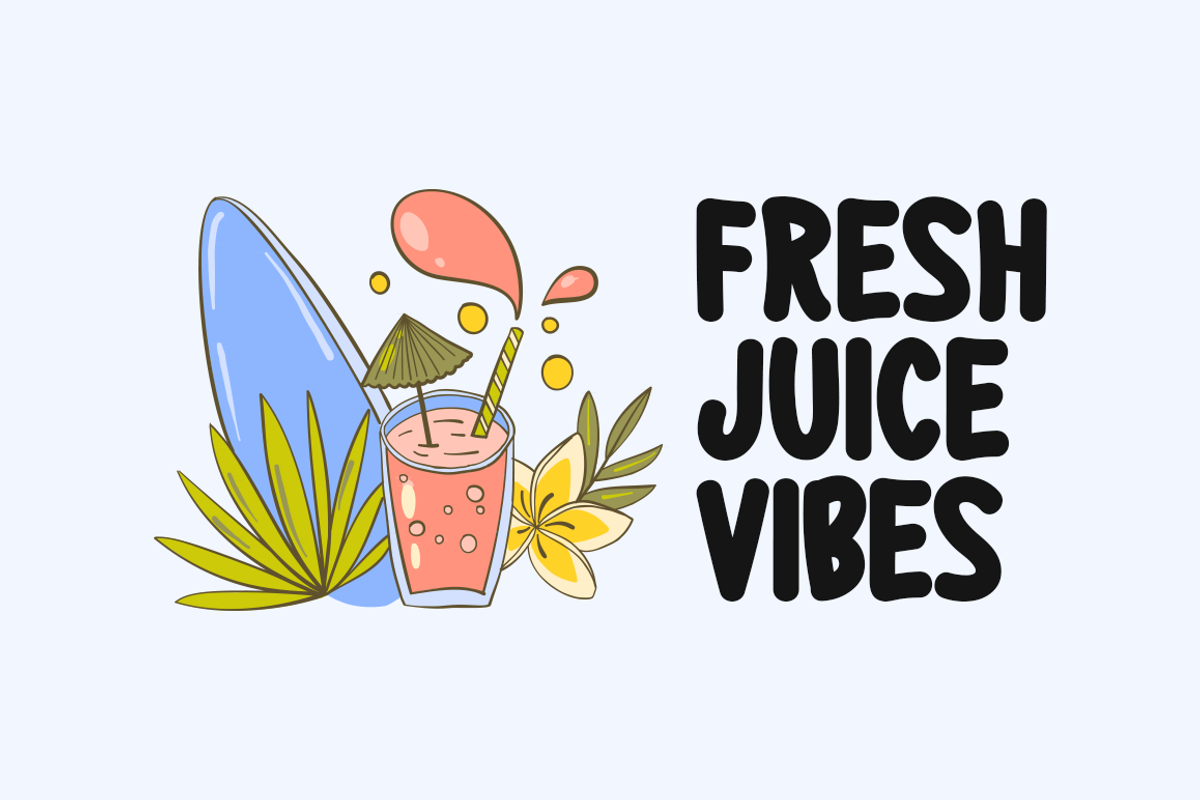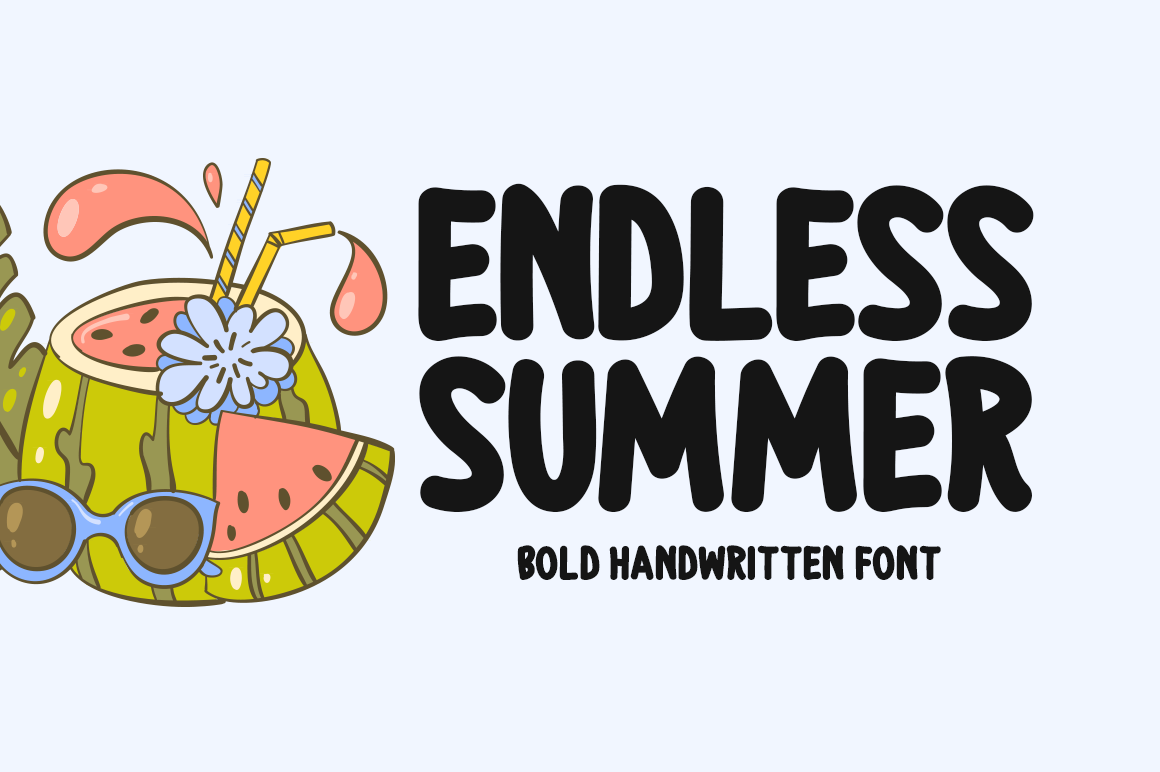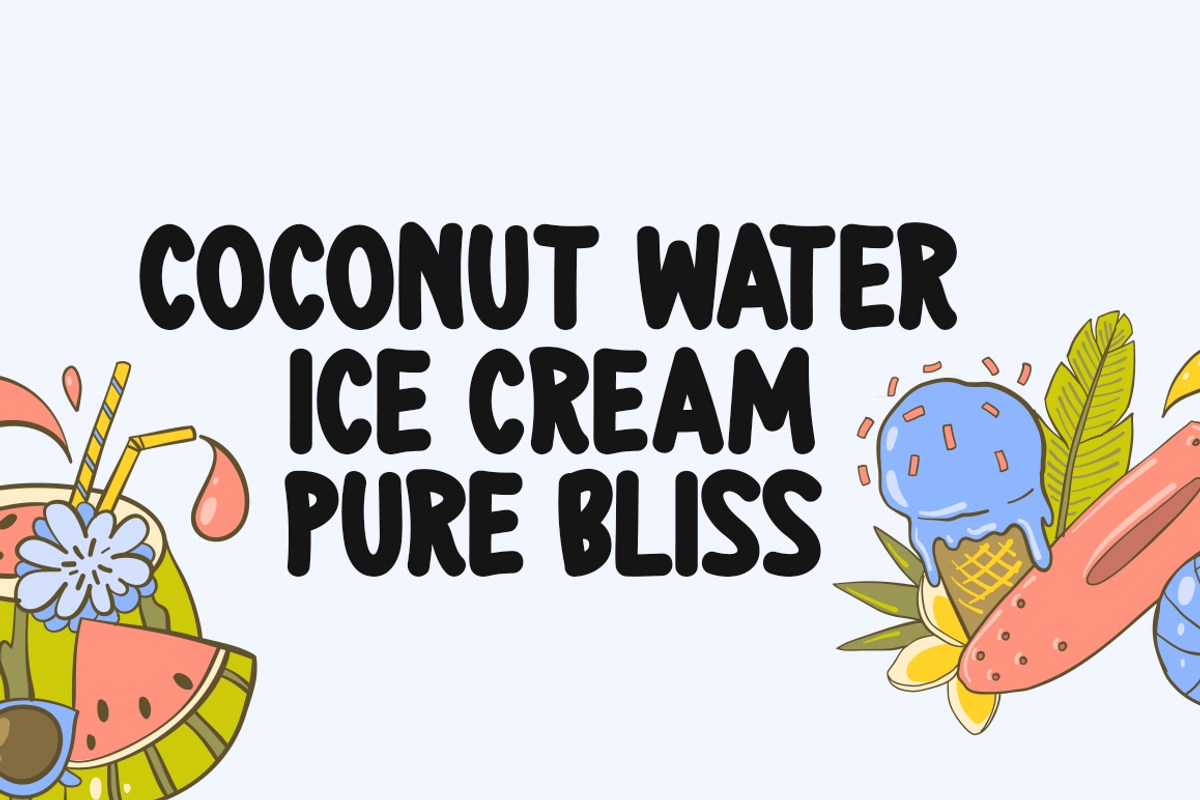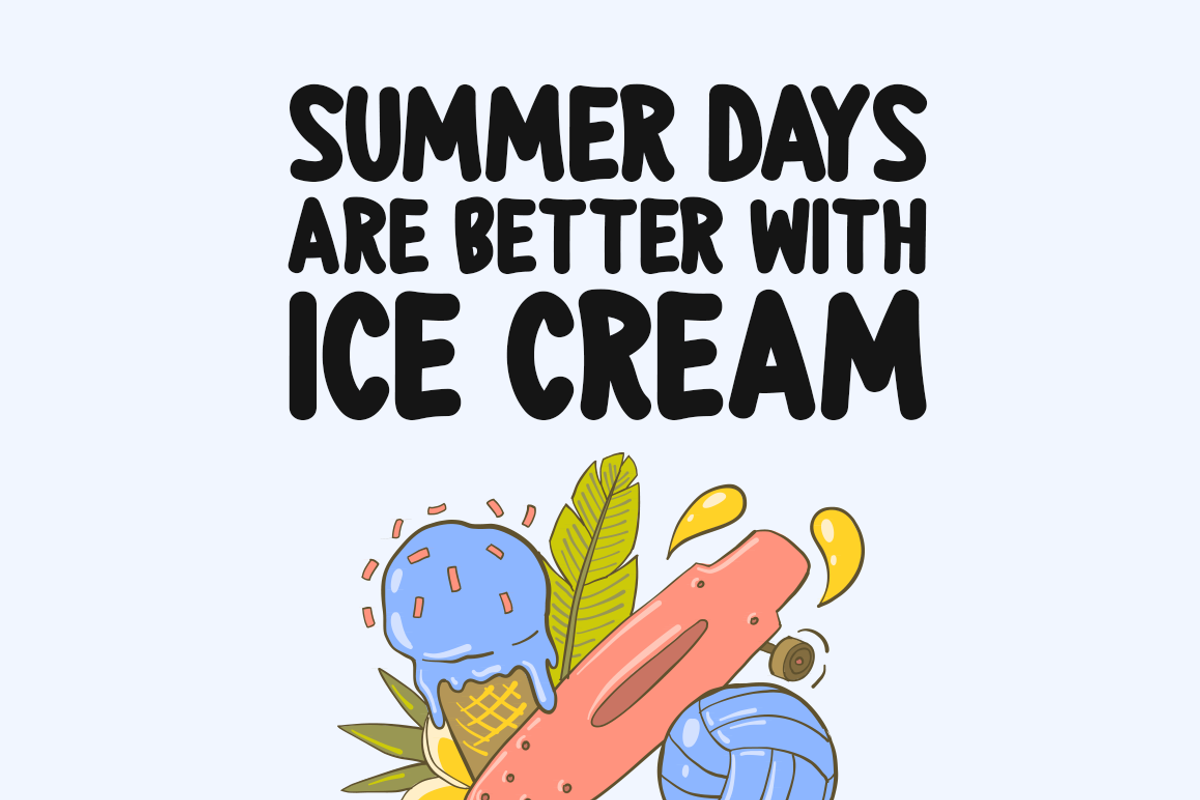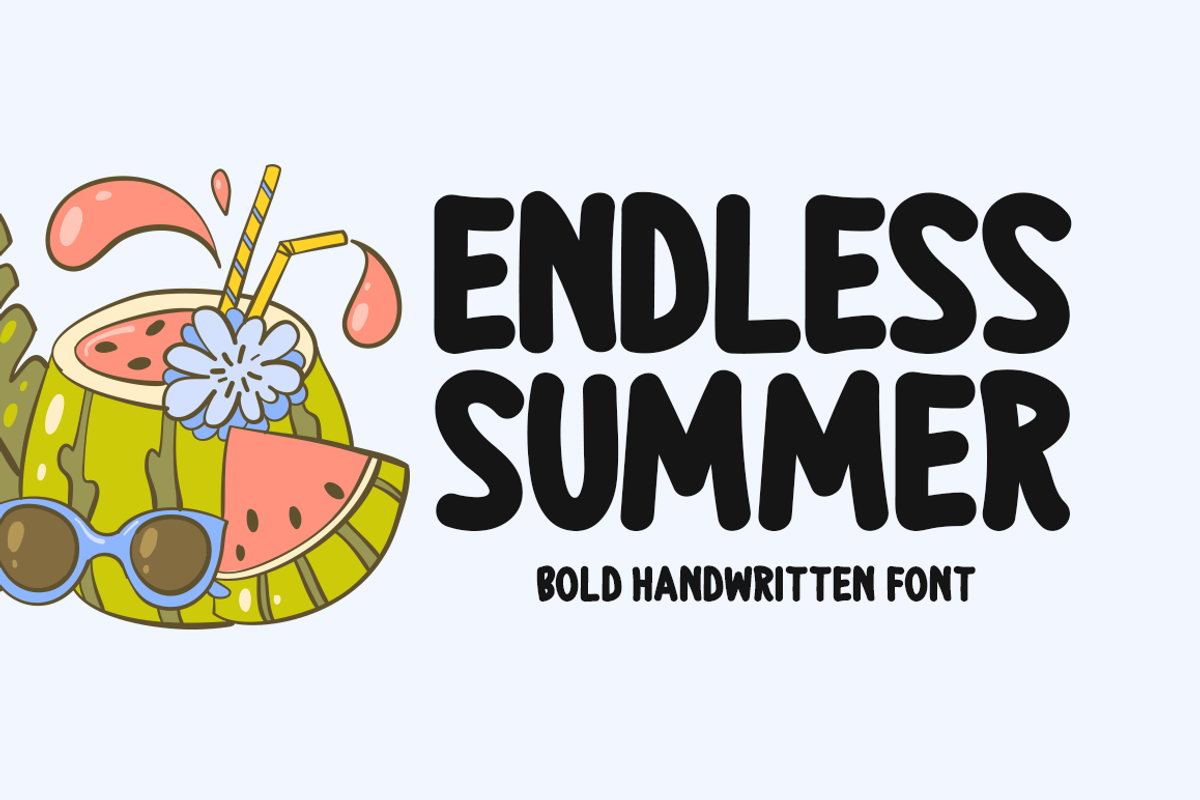
Endless Summer Typeface
Introducing Endless Summer!
Endless Summer is a striking handwritten typeface that adds a touch of elegance and creativity to any project. Ideal for use in stationery, branding materials, apparel designs, prints, web elements, photo displays, promotional flyers, album covers, posters, and digital sliders, this font delivers a unique, sophisticated style to elevate your designs.
Includes a range of multilingual support